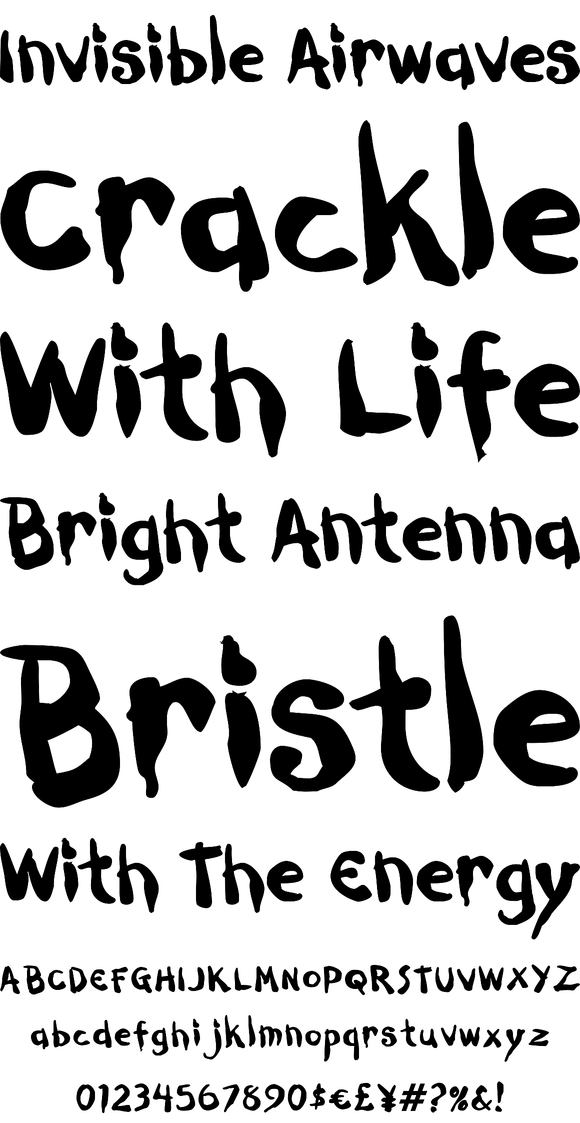
Dark Half
Foundry: Breaking The Norm
Dark Half is a drippy brush lettered typestyle complete with condensed, regular, and wide weights with their respective obliques. It offers a dark and scary feel perfect for holidays like halloween, or anytime you want to put some fright in your designs.